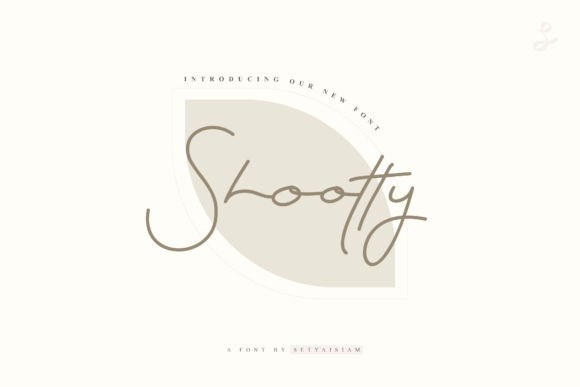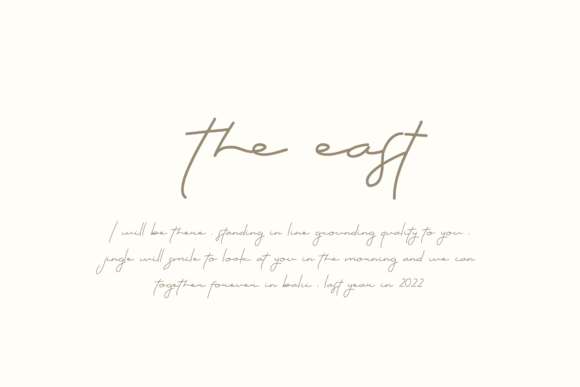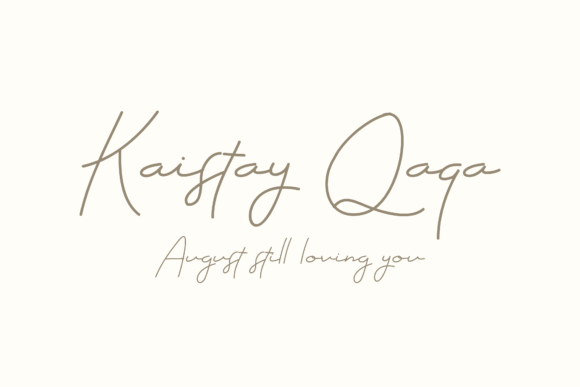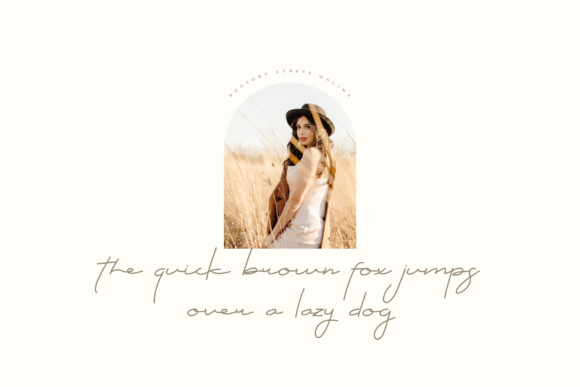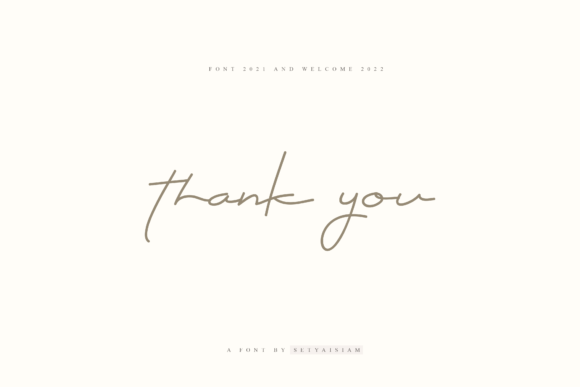
Shootty Font
About Shootty Font
Shootty is a thin lettered script font that is defined by a delicate touch. This font is perfect for campaign needs, branding, logos, Instagram stories, reels or memes.